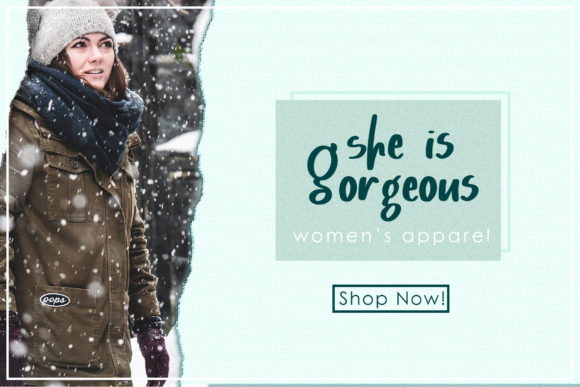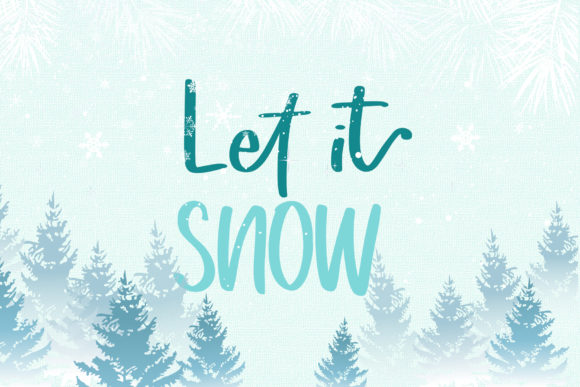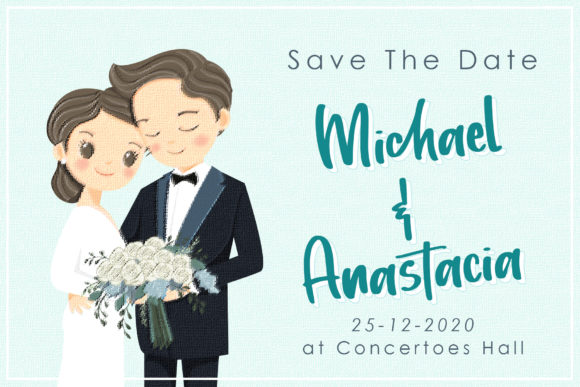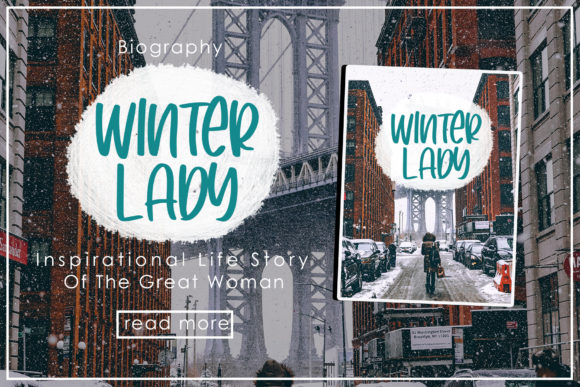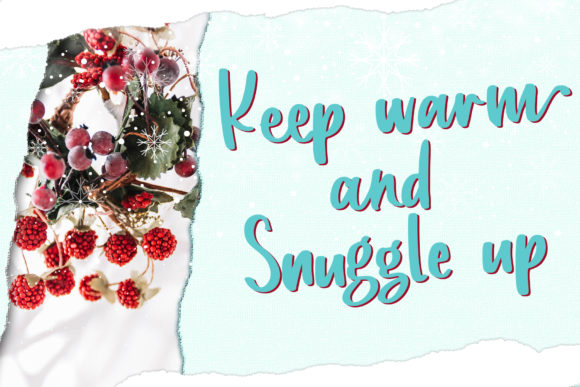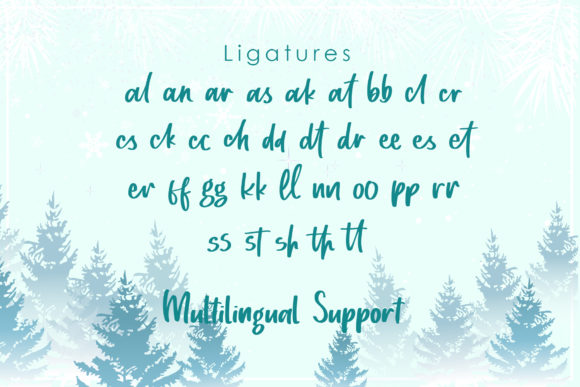
Introduction to Mistletoes Font
Mistletoes is the ideal crafting font for all things Christmas.
Mistletoes is the ideal crafting font for all things Christmas!
Key Features of Mistletoes Font
Why Choose Mistletoes Font?
Mistletoes Font offers exceptional quality and versatility, making it a valuable addition to your design toolkit. Whether you’re creating for personal projects or commercial use, Mistletoes Font delivers professional results.